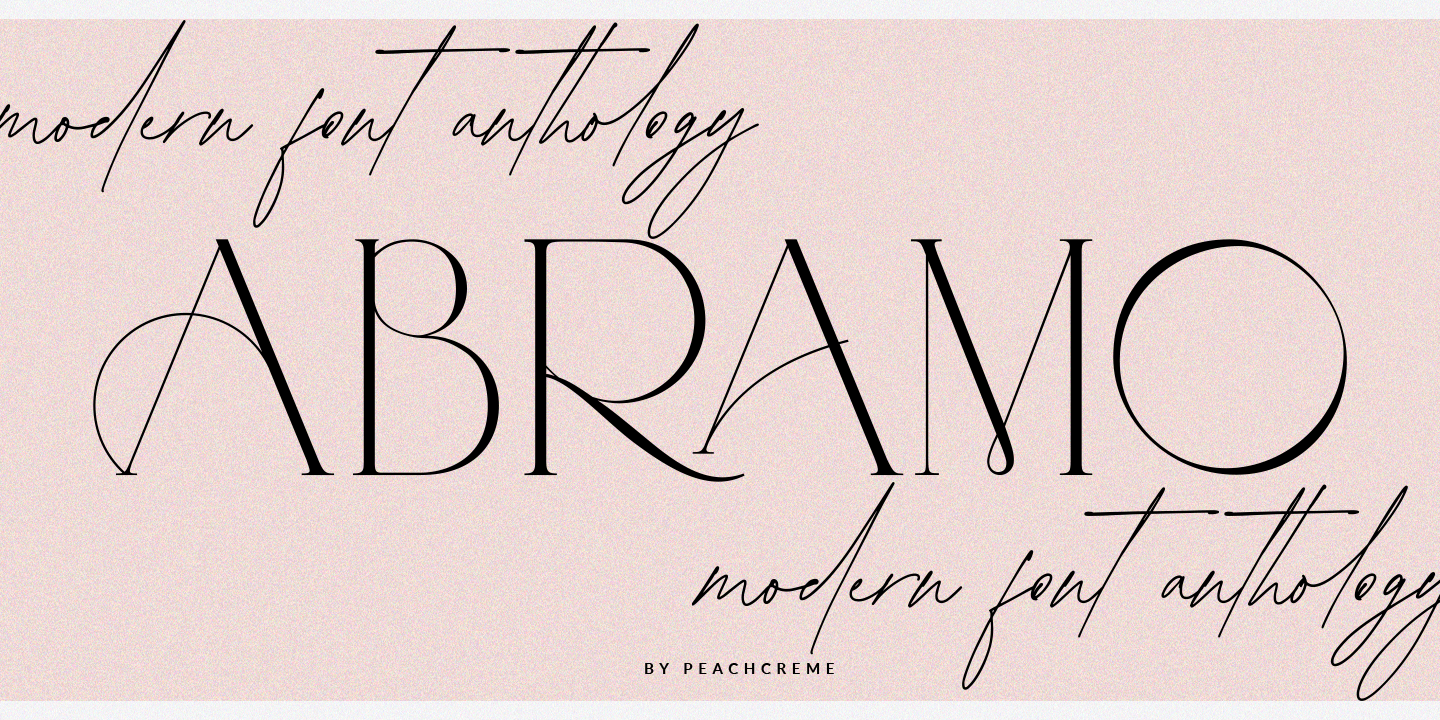
Abramo Font excels in various design applications including Italian restaurant branding, Mediterranean-themed logos, classical heritage materials, traditional family business signage, cultural event posters, historical document designs, authentic Italian packaging, and heritage brand identities. This distinguished typeface adapts beautifully to both traditional digital platforms and authentic print materials, making it perfect for designers seeking Italian elegance and patriarchal sophistication in their visual communications.
Abramo Font generates excitement among design professionals due to its patriarchal character and Italian-inspired styling that instantly conveys wisdom and cultural heritage. The font's dignified letterforms and traditional proportions create an immediate sense of authority and Mediterranean charm. Its distinguished personality makes it particularly appealing for brands wanting to communicate tradition, wisdom, and Italian heritage in their visual identity.
The Abramo Font family includes multiple weights and styles such as Regular, Bold, Light, Italic, and Medium variations. Each family member maintains traditional design principles while offering distinct patriarchal characteristics. The Light weight provides gentle Italian elegance for sophisticated applications, while the Bold version delivers authoritative impact for heritage headlines and traditional brand statements.
Heritage designers frequently choose Abramo Font Free Download for projects requiring both Italian authenticity and cultural distinction. This typeface demonstrates remarkable effectiveness across traditional industries including family restaurants, cultural organizations, heritage brands, and Italian businesses. Its patriarchal character allows organizations to communicate traditional wisdom while maintaining excellent readability and dignified visual appeal that honors Italian culture and Mediterranean heritage traditions.